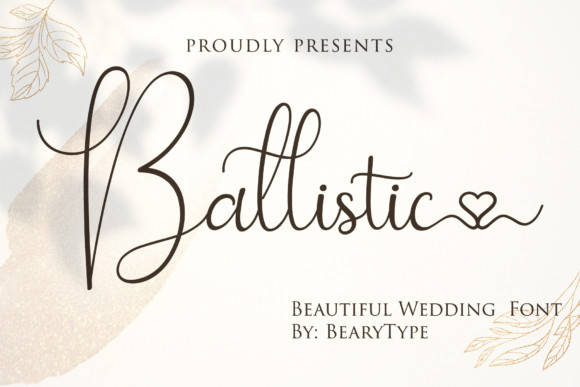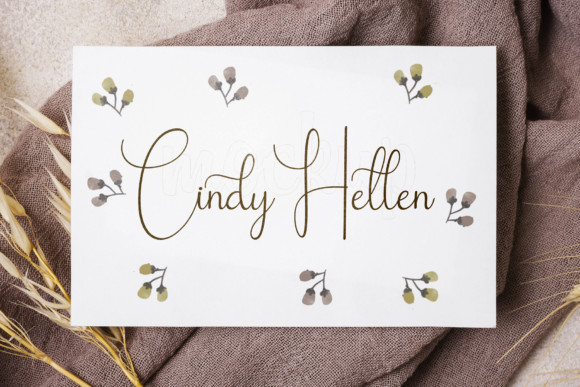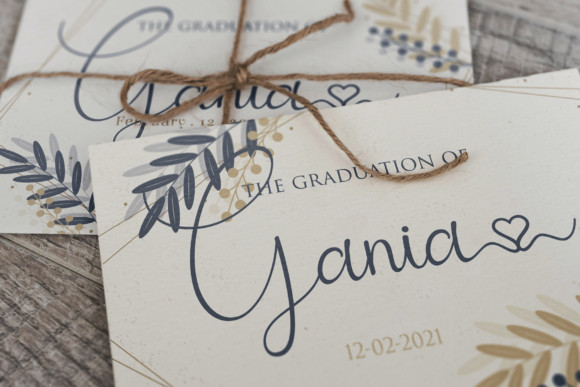
Ballistic Font
Balistic is a delicate and romantic handwritten font. It has beautiful and well balanced characters and as a result, it matches a wide pool of designs. Add it to your most creative ideas and notice how it makes them come alive! This font is PUA encoded which means you can access all of the glyphs and swashes with ease